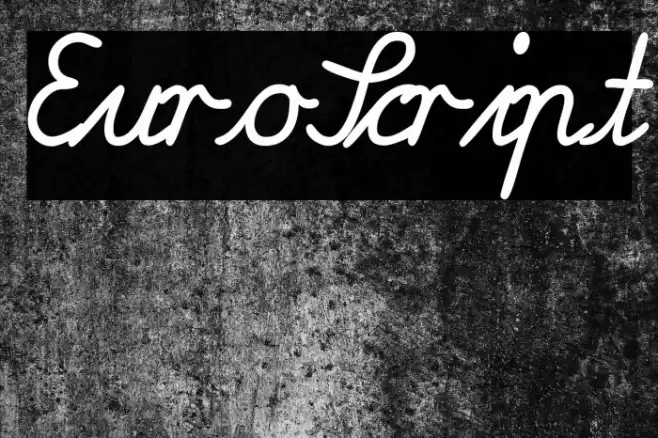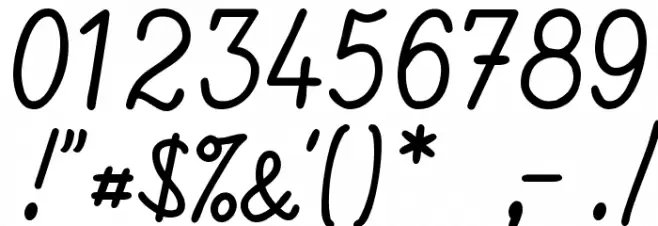
EuroScript Font
EuroScript Description
This font exudes a classic handwritten style with a smooth, flowing script that mimics natural handwriting. The letters are connected, creating a seamless and elegant appearance. The uppercase characters maintain a consistent height, while the lowercase letters feature gentle curves and loops, adding to the font's charm. The numerals are clear and easy to read, maintaining the same fluid style. Special characters are thoughtfully designed to match the overall aesthetic, making this font versatile for various applications.
A classic, flowing handwritten script with elegant, connected letters from Uncategorized fonts.
- Proposed Projects: Ideal for wedding invitations, greeting cards, personal branding, and any project requiring a touch of elegance and personalization.
- Overall Style: Classic
- Use Case: Logos, Invitations, Personal Correspondence